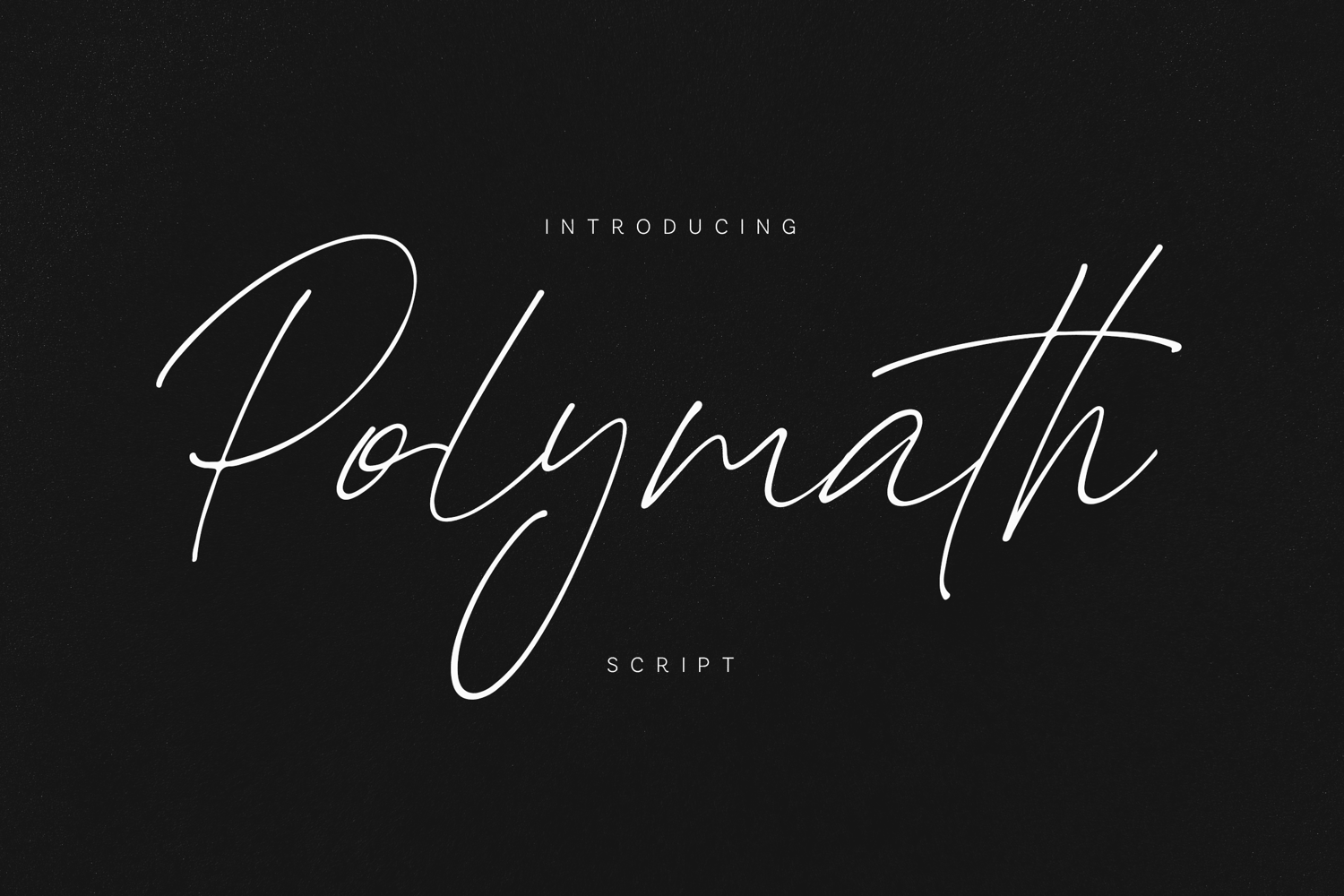
Polymath Script Elegant Handwritten Signature
Polymath is a refined handwritten script font that combines elegance with natural flow. Designed with smooth strokes and expressive curves, it brings a sophisticated touch to any design.
With extensive multilingual support and beautifully crafted letterforms, Polymath is perfect for global branding and modern creative projects. Its clean yet expressive style makes it highly versatile across both digital and print applications.
Whether you’re designing luxury branding or social media visuals, Polymath delivers a timeless handwritten feel with a contemporary edge.
• Smooth handwritten flow
• Elegant signature style